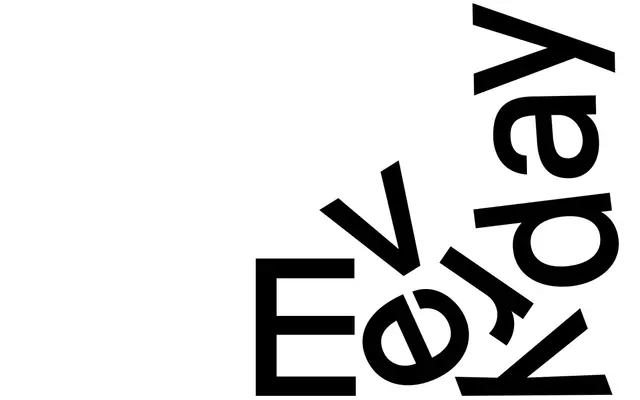
Everyday Sans
A four-weight sans-serif drawn from the study of 20 typefaces, aiming for a broadly familiar neutrality with a slightly elevated x-height.
Released in 2014, Everyday Sans attempts to distil a common visual language from a survey of existing sans-serif typefaces, landing somewhere between warmth and restraint. The elevated x-height aids legibility at smaller sizes, and the broad language support covers over 60 Latin-based languages. Four weights are available in OTF and WOFF2 formats, making it functional across editorial and branding contexts without strong stylistic distinction.
Described as distilled from 20 different fonts with warm, playful strokes and refined forms, suggesting a humanist sans approach rather than a strictly geometric or grotesque one.